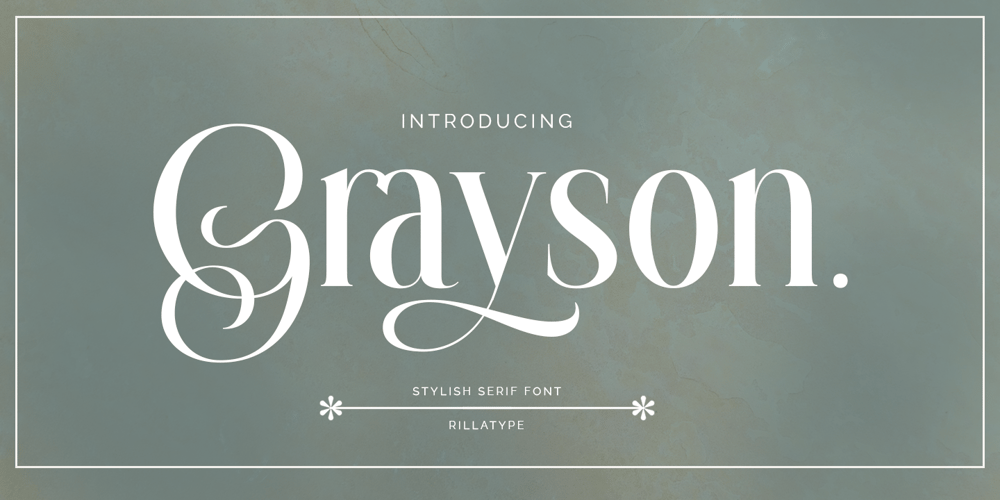
Grayson Font Family was designed by Gustian Agung Asprilla and published by Rillatype. Grayson contains 2 styles and family package options. Introducing, Grayson Serif. Grayson is a swash serif font that have an unique look to give your design a little bit of elegant but still feminine. this font is perfect for magazine, headline, editorial, instagram pst, etc.